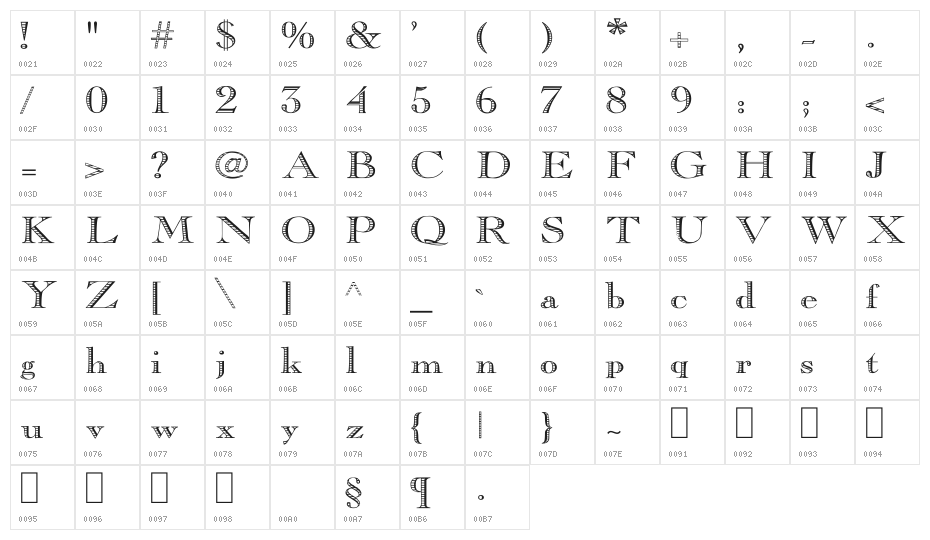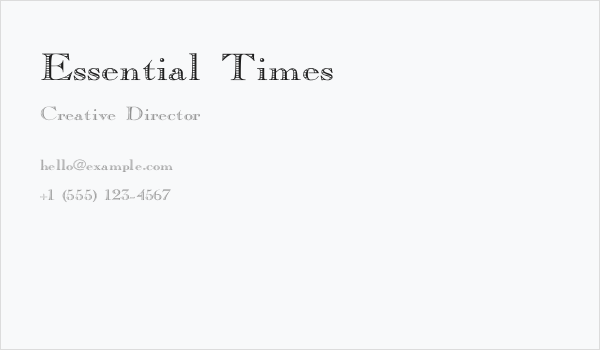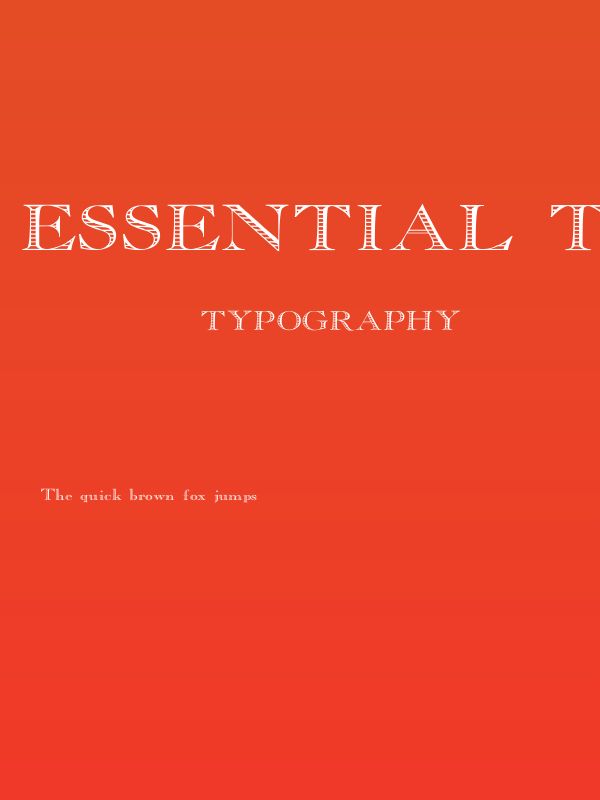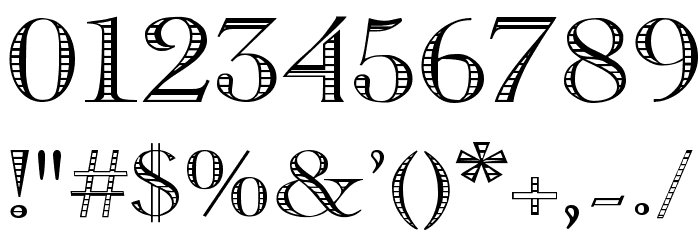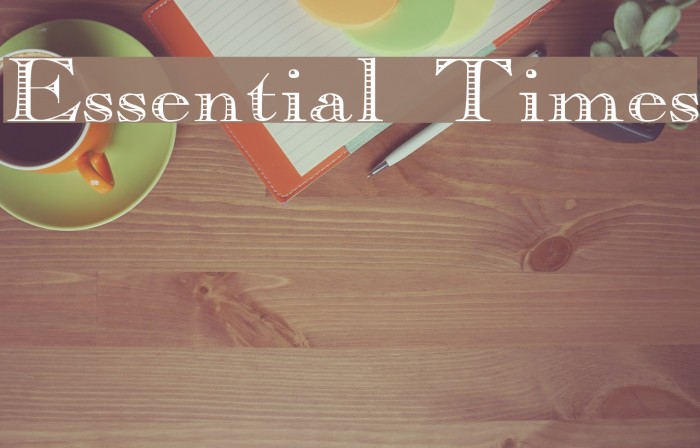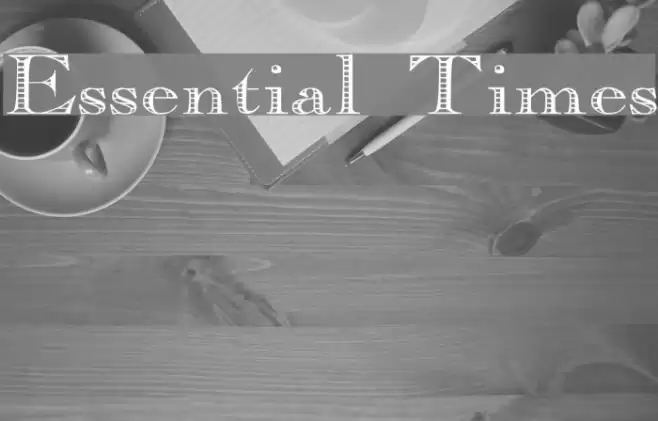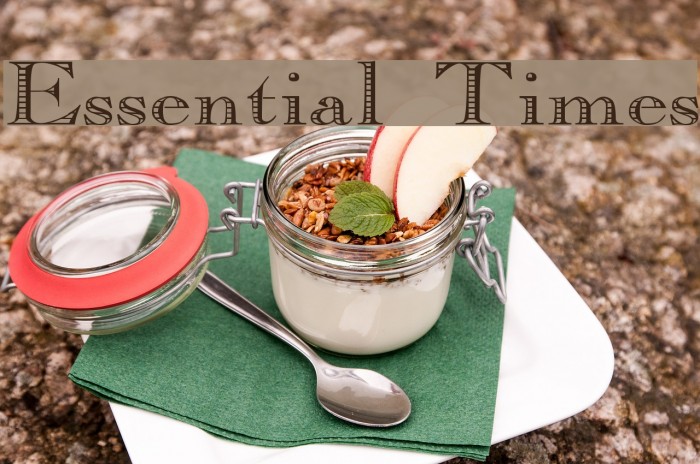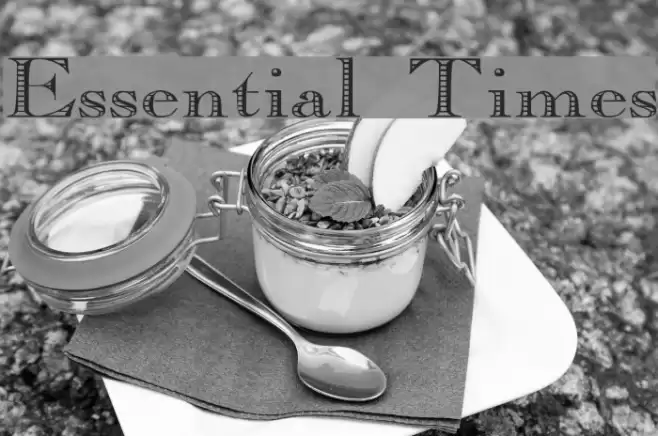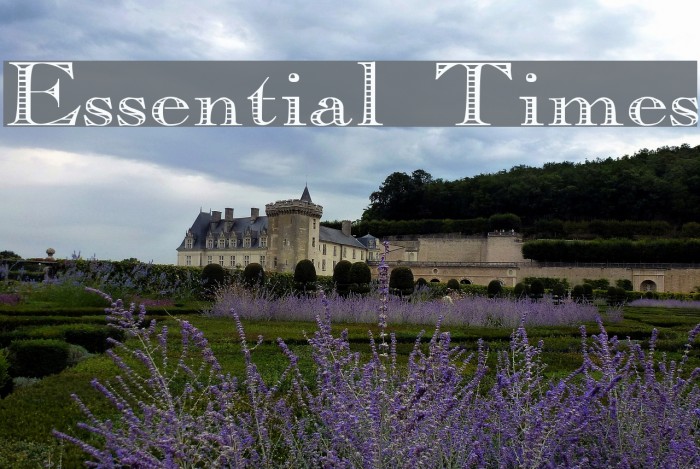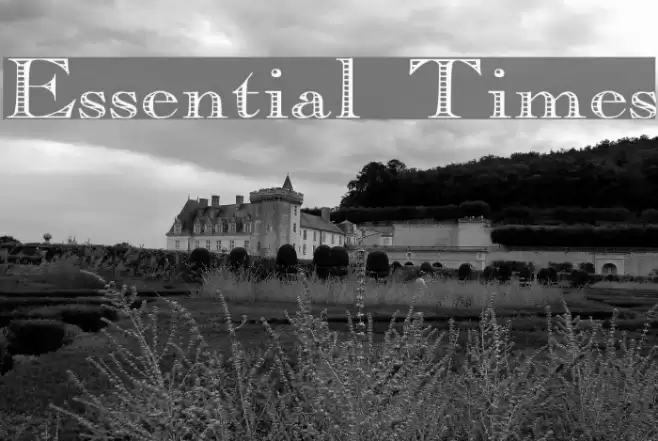
Essential Times Font
Essential Times Description
This font features a unique decorative style with vertical lines running through each character, giving it a textured appearance. The uppercase and lowercase letters maintain a consistent design, with sharp serifs and a slightly condensed form. The numerals and special characters follow the same pattern, ensuring uniformity across the typeface. The intricate detailing makes it stand out, suitable for creative and artistic projects where a bold statement is desired. Its distinct style combines traditional serif elements with a modern twist, making it versatile for various design needs.
| Proposed Projects | Ideal for posters, branding, book covers, and artistic projects requiring a bold and unique typeface. |